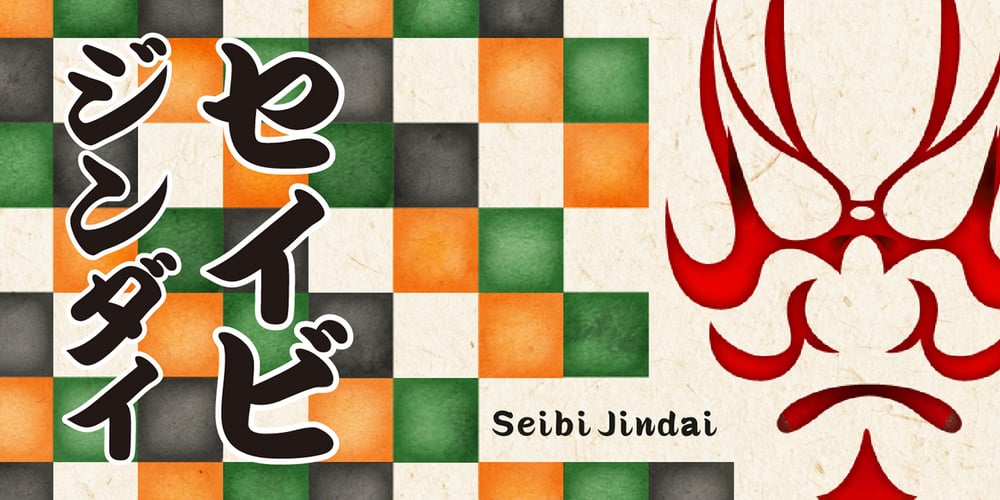
Seibi Jindai Font Family was designed by published by Nihon Literal. Seibi Jindai contains 1 styles and family package options. It is a font based on characters called “Kanteiryu,” which were used in the Edo period for signboards and the rankings of actors in stage performances such askabukiandjoruri. While inheriting the culture of “Kanteiryu,” the “NewKanteiryu” font is easy to read and is arranged in a modern style, maintaining its decorative nature. You can enjoy the movements of calligraphy-like brush strokes in both vertical and horizontal typesetting. 江戸時代に歌舞伎や浄瑠璃などの舞台演芸の表看板や番付に使用された「勘亭流」と呼ばれる文字をベースにした書体です。「勘亭流」は歌舞伎の舞をイメージした曲線的なエレメントが一番の特徴ですが、他にも「字を太くして空白(隙間)をなくす=空席がないように」「尖らせず丸みをもたす=興行の無事円満祈願」「ハネを内側に入れる=観客を芝居小屋に入れる」など、一般的な毛筆とは違う、縁起を担いだ独特の決まりで書かれたとても装飾性の高い文字です。セイビジンダイは「勘亭流」の文化を継承しつつ、装飾性を保ちながら読みやすく現代風にアレンジした「新勘亭流」書体です。タテ組でもヨコ組でもカリグラフィのような筆の動きが楽しめます。